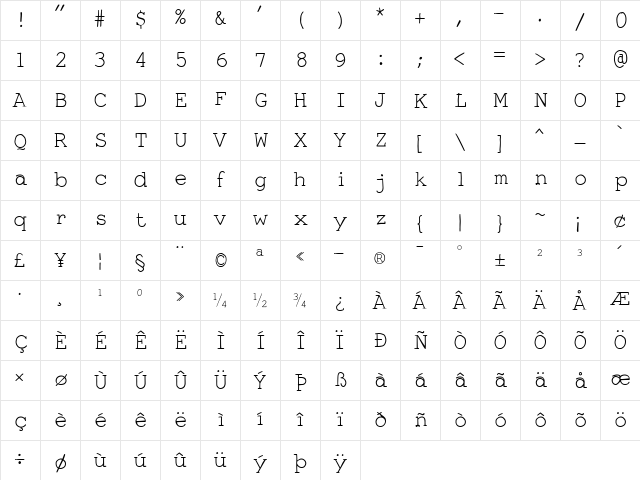
Smart Chameleon Regular
Design Context for Smart Chameleon Typeface
Smart Chameleon is a composed and adaptable typeface that performs quietly and consistently across a wide range of design contexts.
Pro Tip: Use Smart Chameleon in both headline and body roles to test its range before committing to a single application.